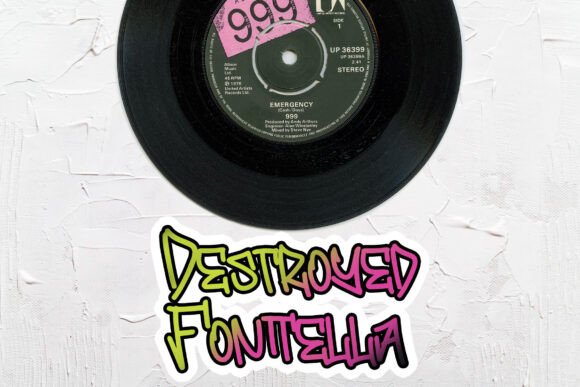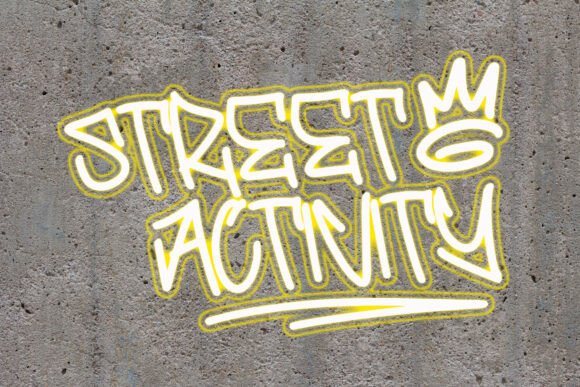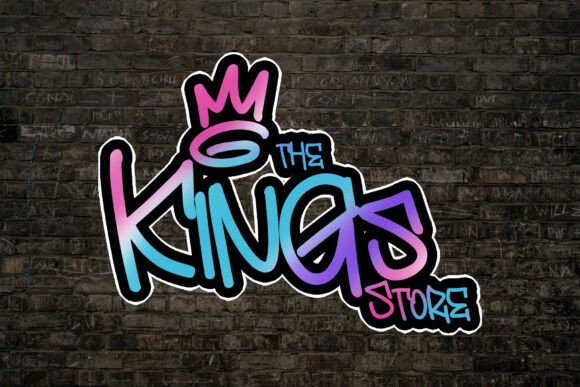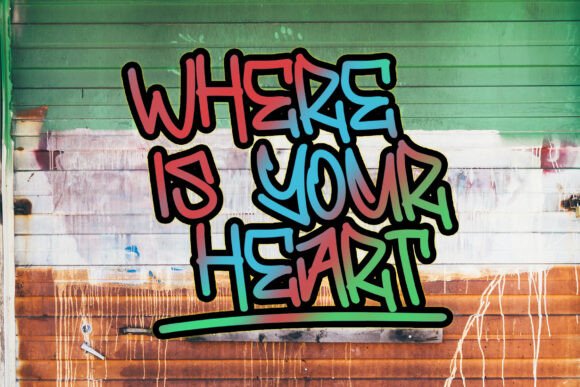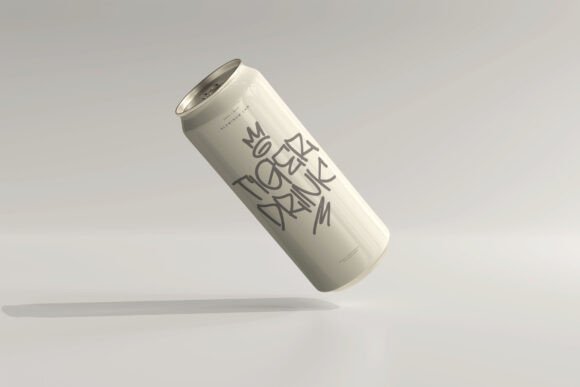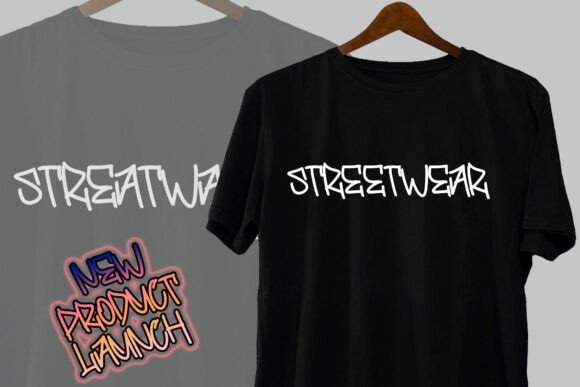
Introduction to Erkoma Font
ERKOMA: Bold Monoline Graffiti Font Meet ERKOMA, a graffiti font with a striking bold monoline brush style, designed to add character and impact to your projects.
With its unique, eye-catching shapes, ERKOMA brings an authentic street-art vibe, perfect for branding, posters, streetwear, and more This fontโ€™s bold style instantly enhances visual appeal with a creative, edgy touch.
Key Features of Erkoma Font